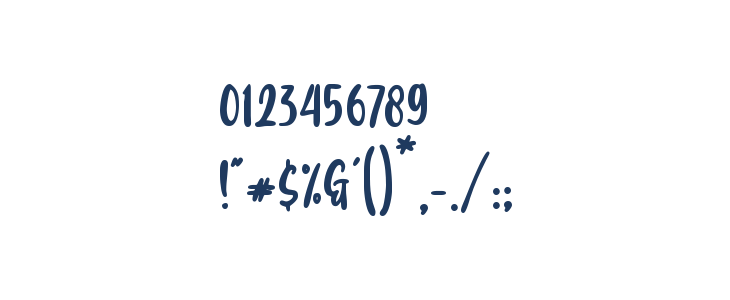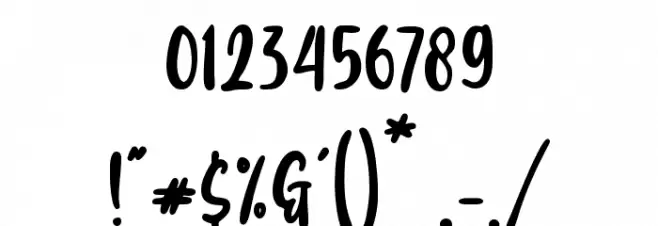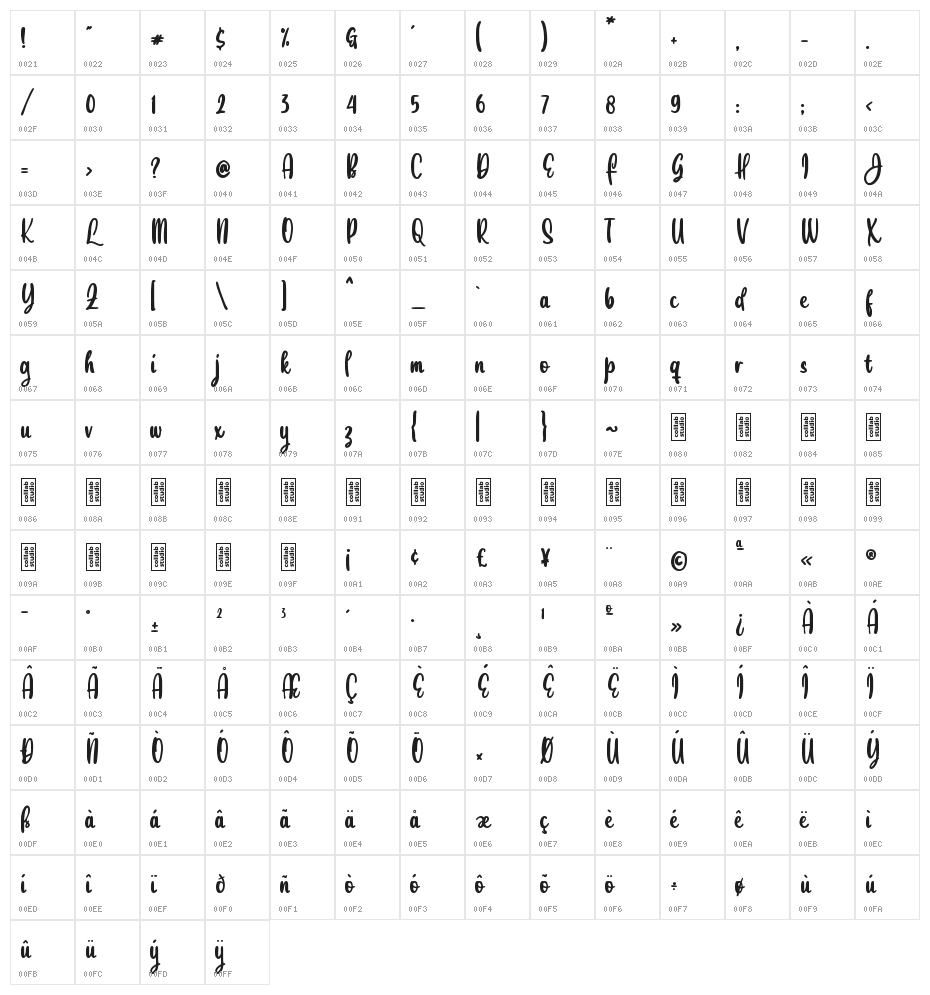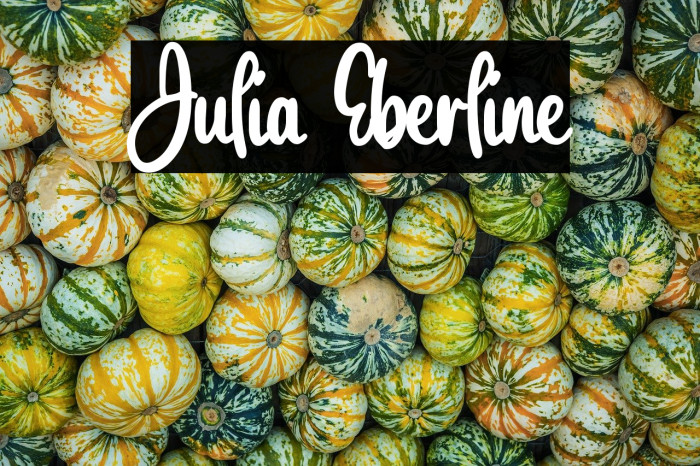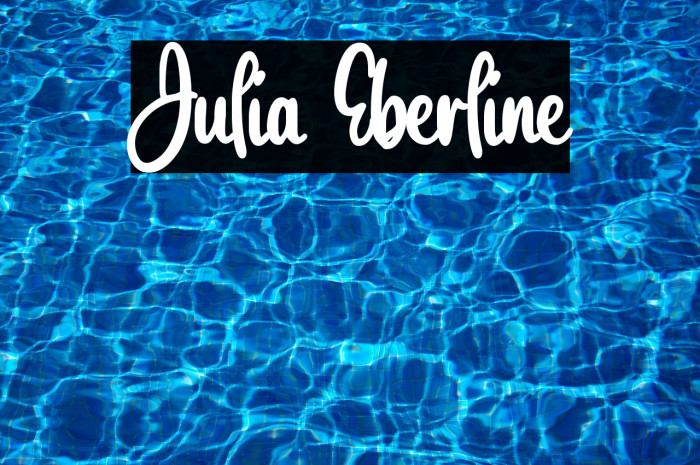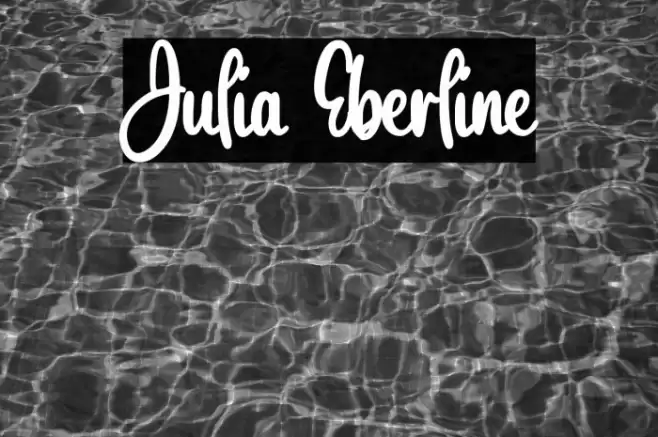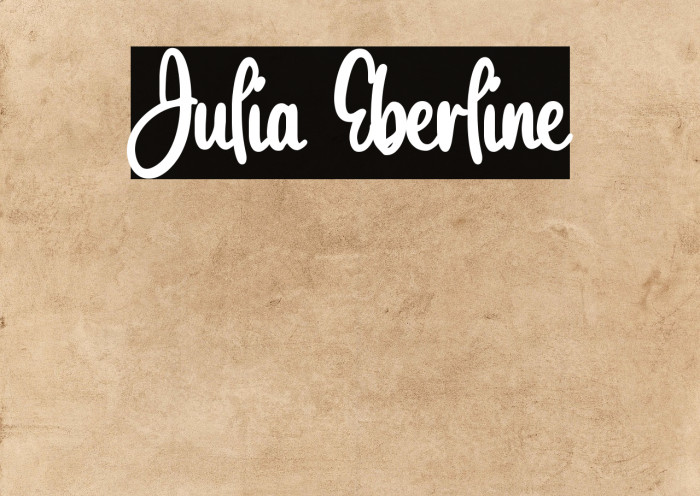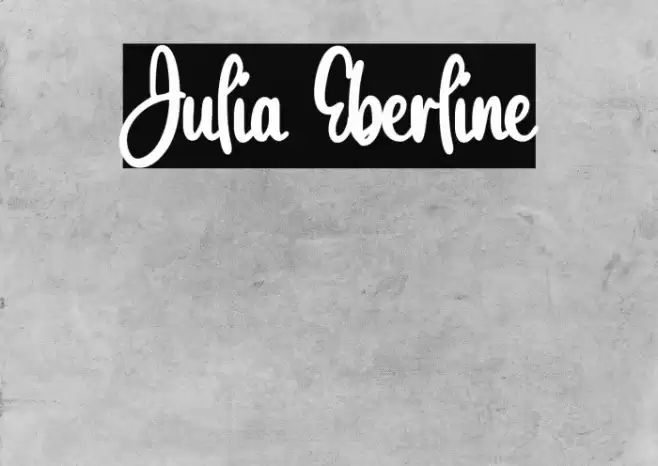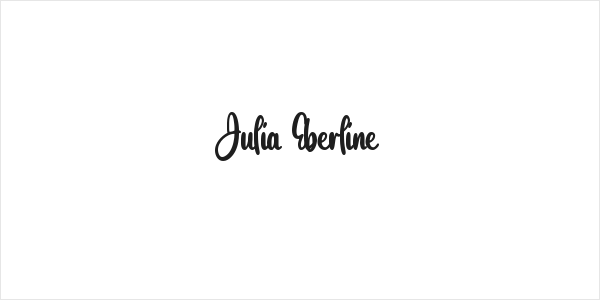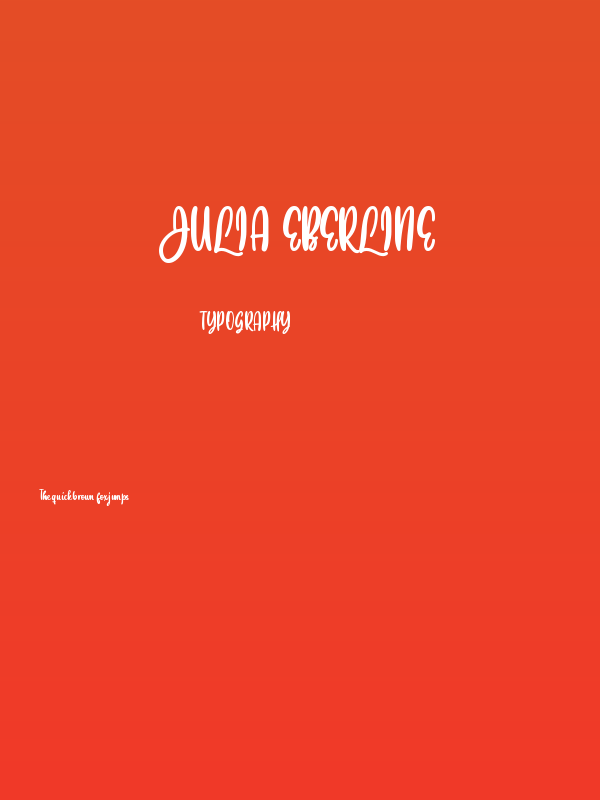
Julia Eberline Font
Julia Eberline Description
This font features a bold and expressive handwritten style, characterized by its fluid and dynamic strokes. The uppercase letters are tall and slightly condensed, with a playful yet sophisticated flair. The lowercase letters maintain a consistent flow, enhancing readability while preserving the artistic touch. Numbers and special characters are crafted with the same attention to detail, ensuring a cohesive look across all elements. The overall appearance is both modern and approachable, making it suitable for a variety of creative applications.